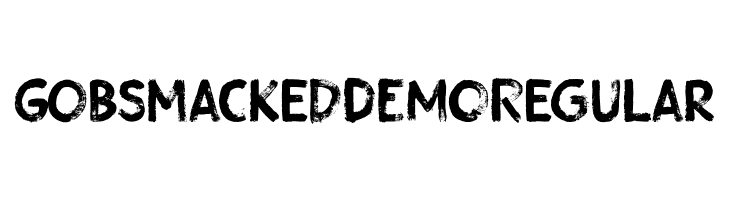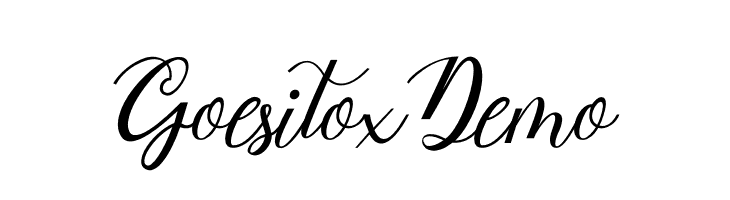
( Fonts by ReveryWorks )
A playful, hand-drawn outline font with a whimsical and artistic style.
A bold, distressed font with a hand-painted, textured appearance.
A sophisticated, elegant handwritten font with fluid, continuous strokes.
An elegant, high-contrast script font with flowing cursive style.
A bold, hand-drawn font with a grunge aesthetic and irregular edges.
A bold, cursive script font with elegant, flowing strokes.
( Fonts by Rochart Studio )
A bold, hand-painted style font with a dynamic and artistic flair.
A graceful script font with a flowing, cursive style and elegant character design.
A graceful and elegant script font with flowing, cursive letterforms.